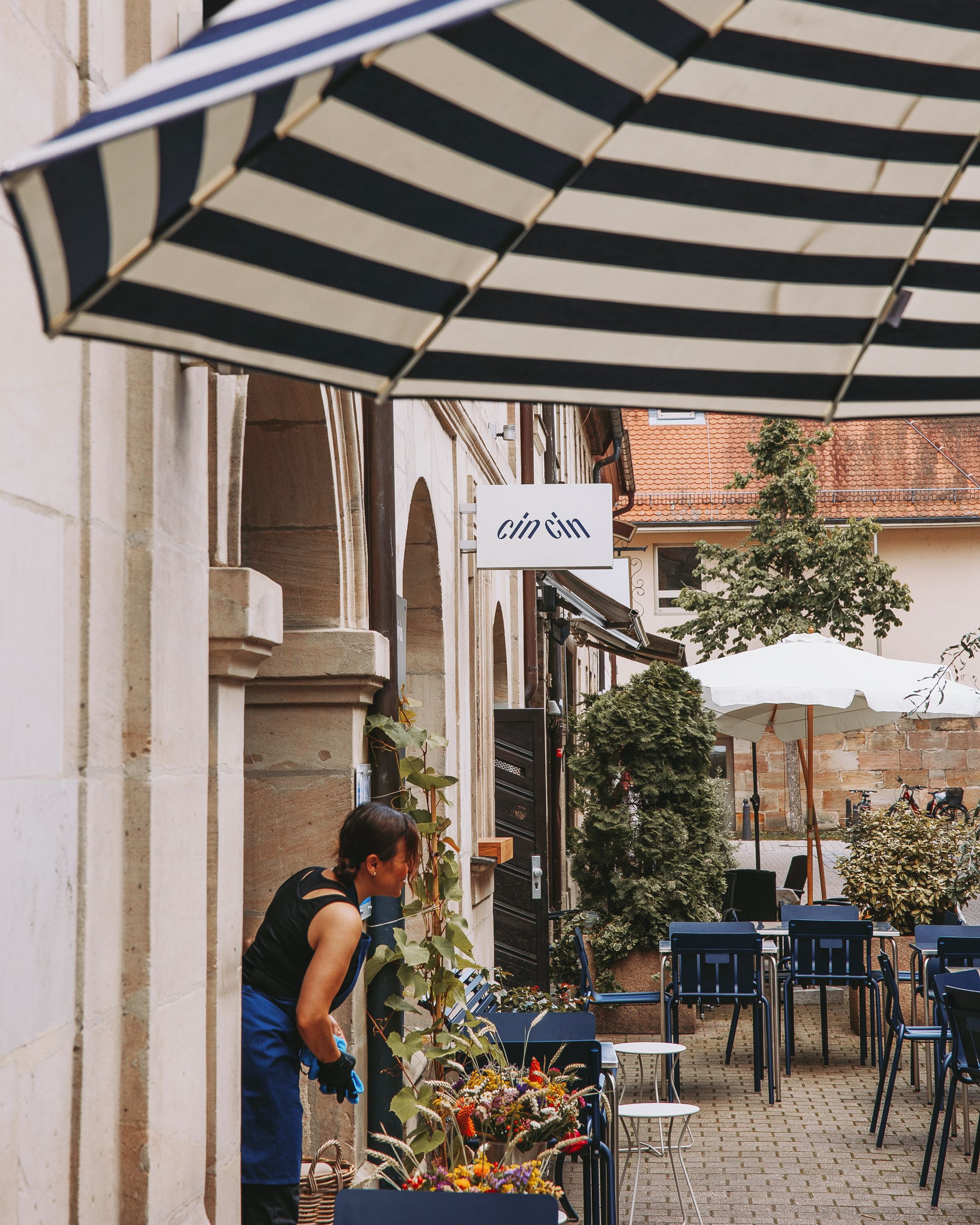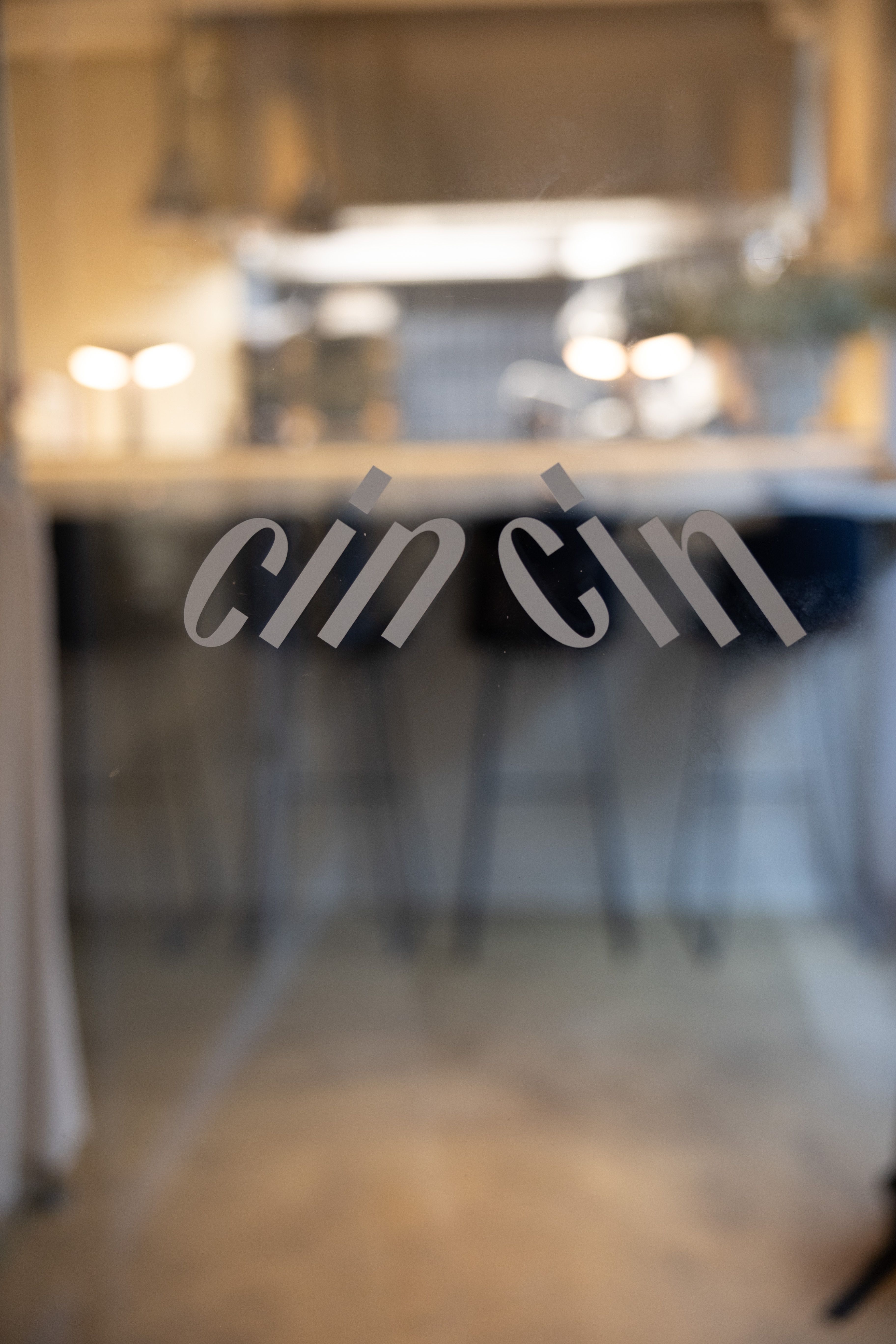
cin cin
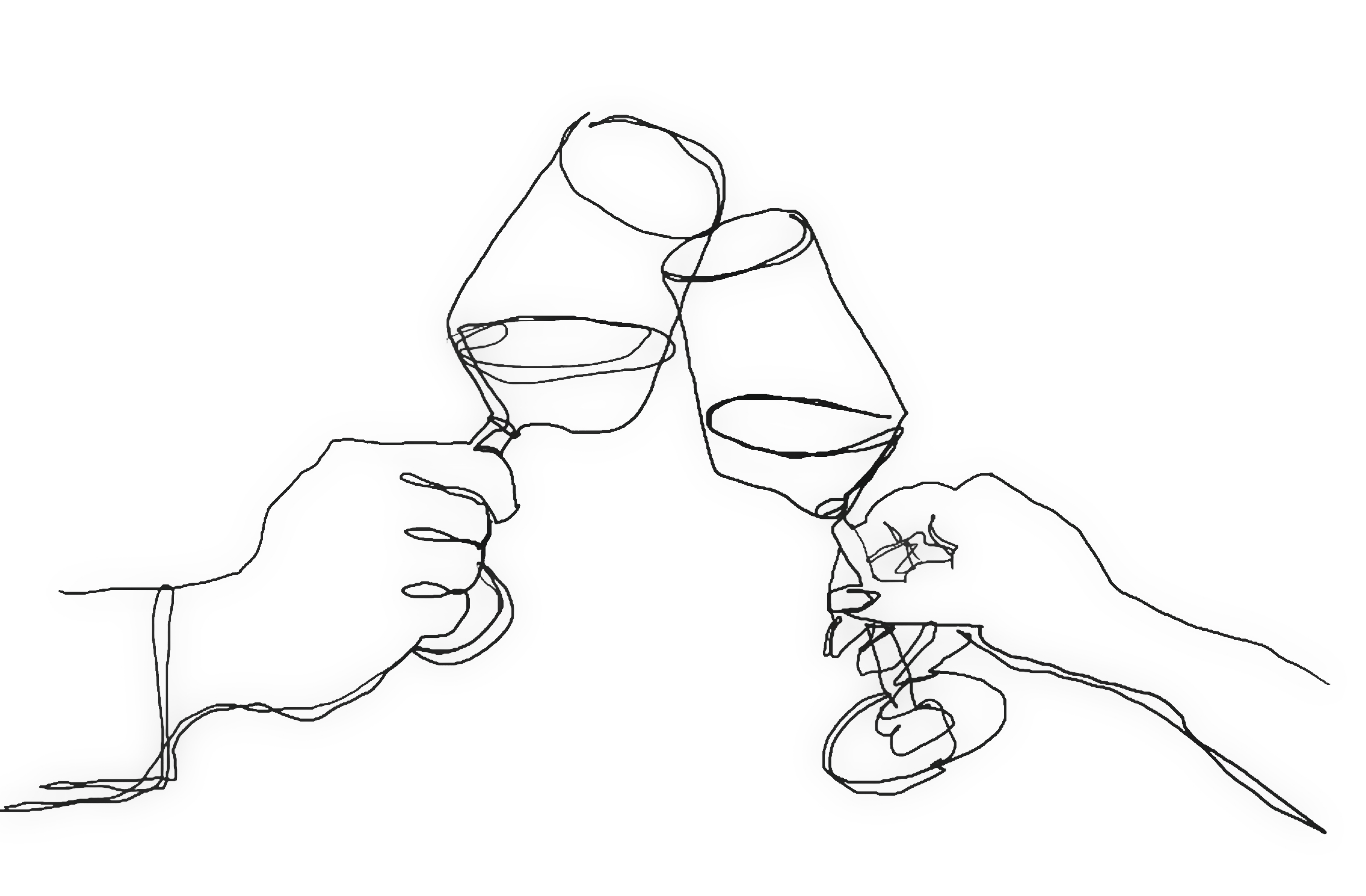
Waiting for the sound of two glasses clinking before they meet at a 30-degree angle: cin cin – a sound you'll hear often in Erlangen. For the fanciest Bistro & Bar in Franconia, we designed a typographic logo that symbolizes this moment with a Rotalic forward and backward. Hannah Gericke, a renowned chef, has created a space filled with taste and magic, from the small street to the finely picked napkins.
Monoline sketch by Mona
Typographic logo
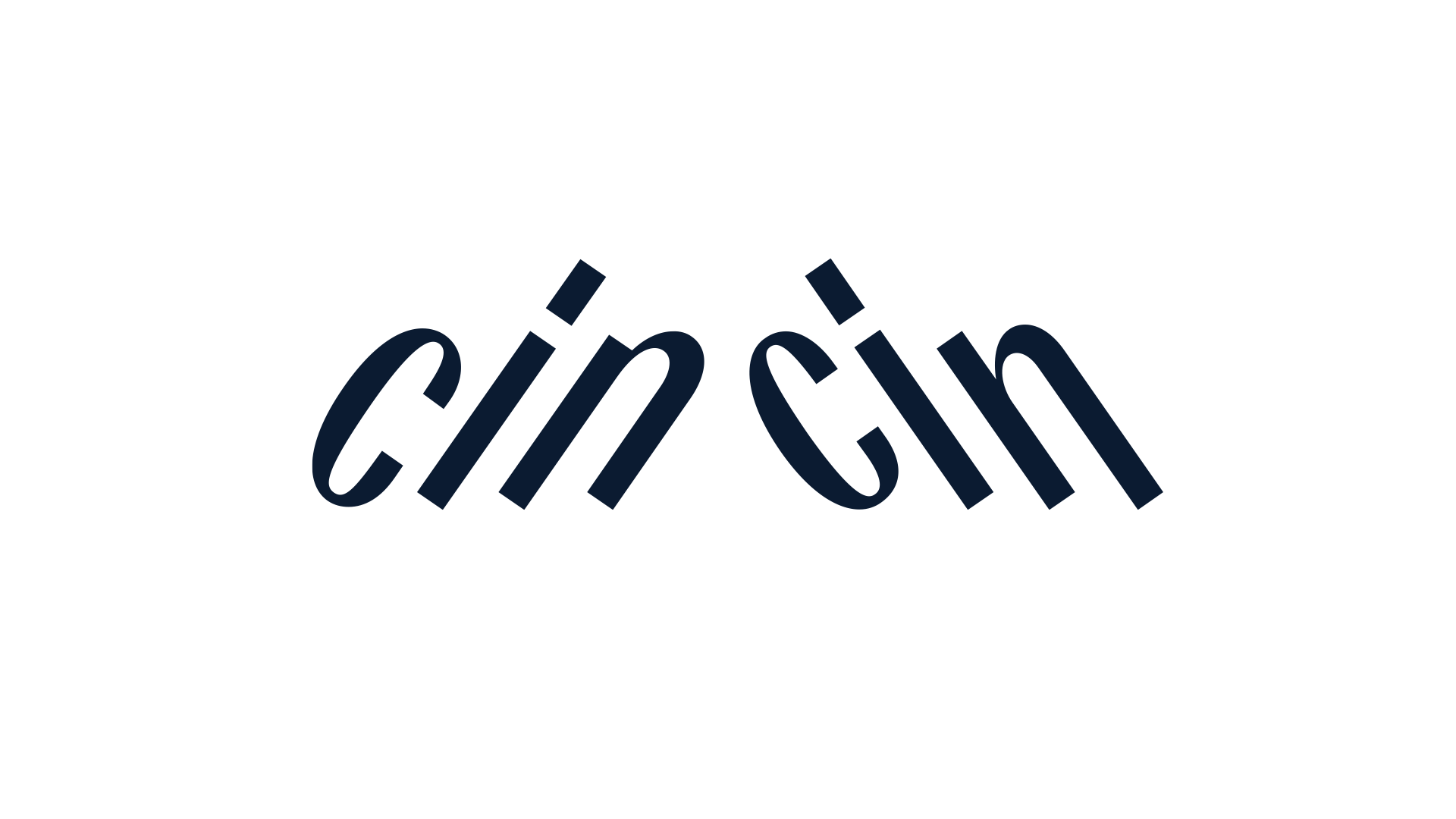
The chosen logo idea was sketched very quickly, but finding the right typeface to fit the purpose proved to be a challenging task. So-called rotalics are rare. We almost found one to suggest to Hannah: a stunning condensed sans named Bourrasque 45 Est and Ouest. However, we ultimately had to reconsider and draw the logo from a new angle: we needed something that conveyed 30° Franconian fine dining rather than 45° Bavarian beer hall. 😉
Weekly menu meets selected wine card
To achieve an exquisite look, the design should remain subtle. Since the logo already conveys elegance with a condensed and contrasting sans serif, we chose a matching typeface for the layouts: Elza by Blackletra Foundry in a very thin style. This brings in a fine, linear tone that complements the similar i-strokes.
The Layout idea is very much fitting the logo idea through its alignments towards each other. I bet you would have done the same.